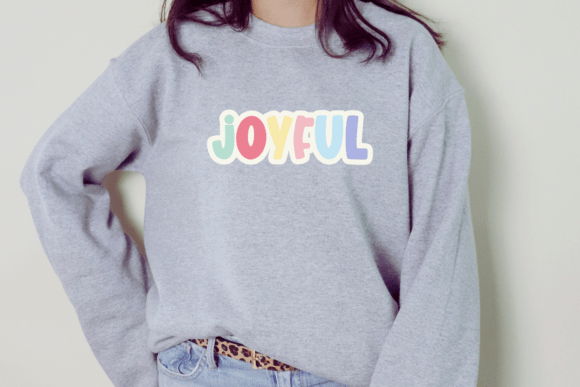
Easter Font
Easter font is cute and suitable for Easter and kids. This font is bold, it offers support for all characters of the English language for display font.It can be used for any design project e.g. posters, t-shirts, mugs, kid’s projects, planners, stickers, home decor, etc.Note!This product is a color font (Opentype-SVG) and is compatible with PhotoShop, Illustrator, Silhouette, and Inkscape. The OTF and/or TTF files of this product are not compatible with Cricut. For more information on how to use this type of font please check our Ultimate Font Guide .